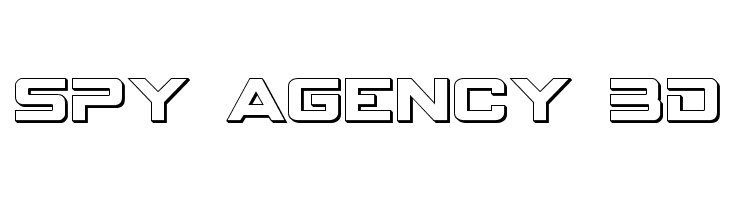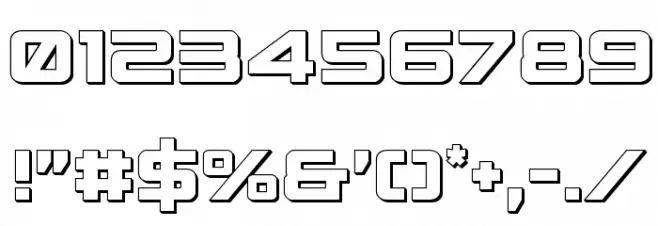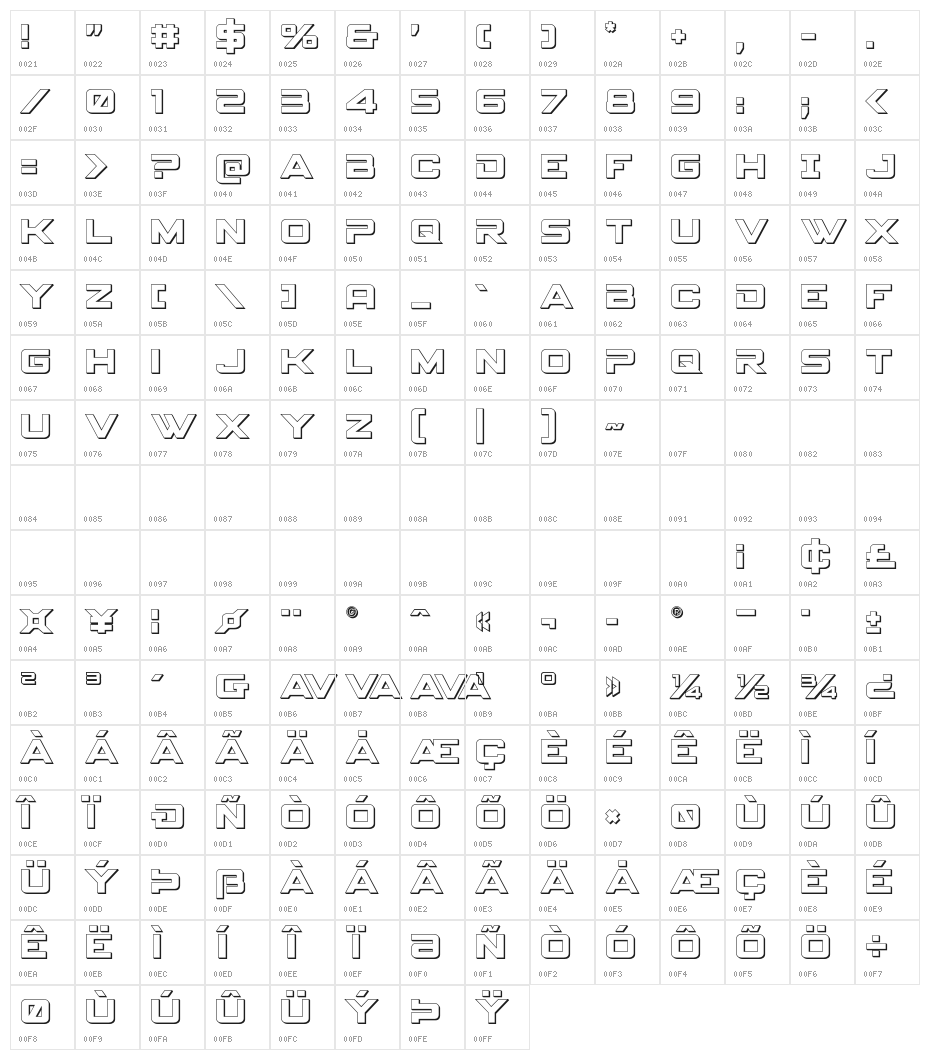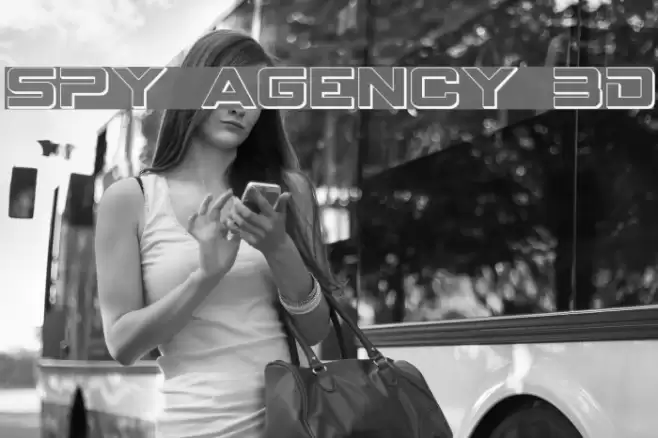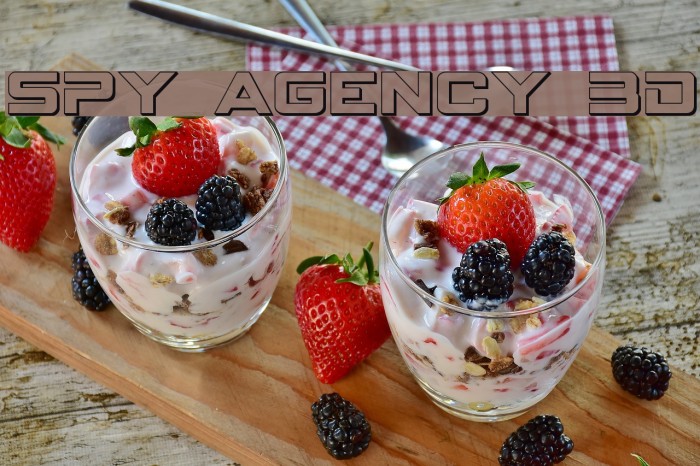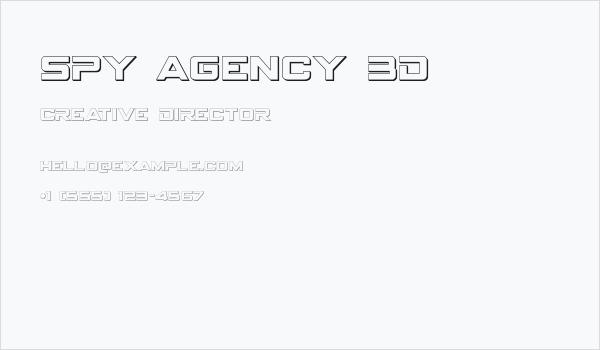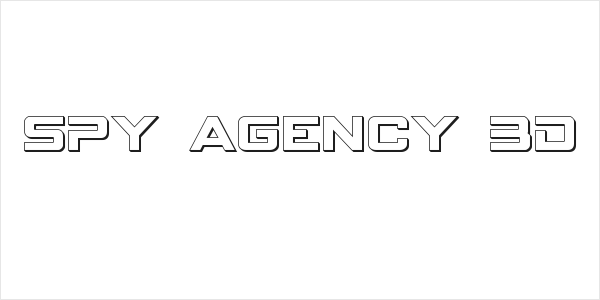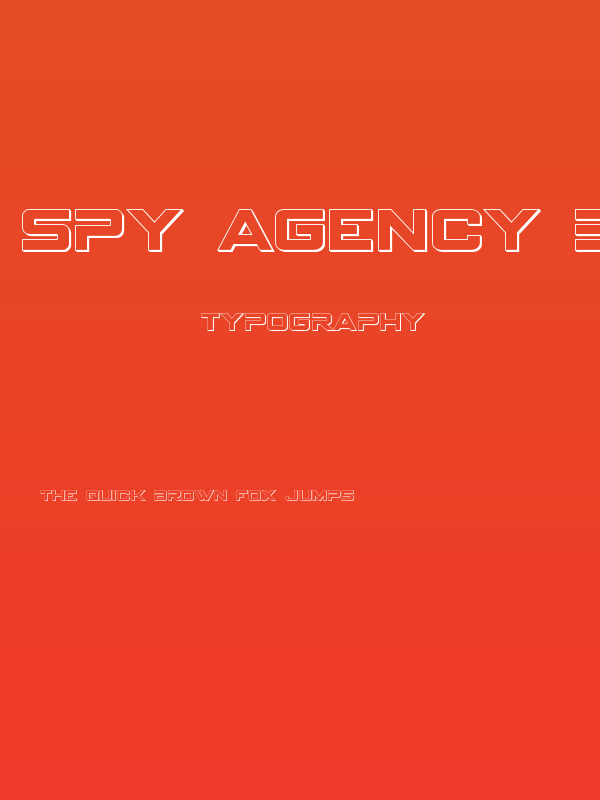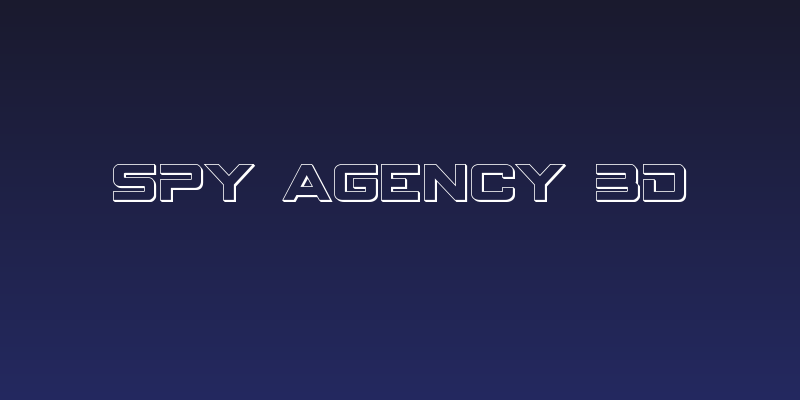
Spy Agency 3D Font
Spy Agency 3D Description
This font features a bold, three-dimensional design with a futuristic and geometric aesthetic. The characters are outlined, creating a hollow effect that adds depth and dimension. The uppercase letters are angular and structured, with sharp edges and clean lines. The numbers and special characters maintain the same bold and structured style, ensuring consistency throughout the font. This design is visually striking and commands attention, making it ideal for projects that require a modern and dynamic look.
Proposed ProjectsIdeal for sci-fi themed projects, video game titles, movie posters, and branding that requires a modern and eye-catching appearance.